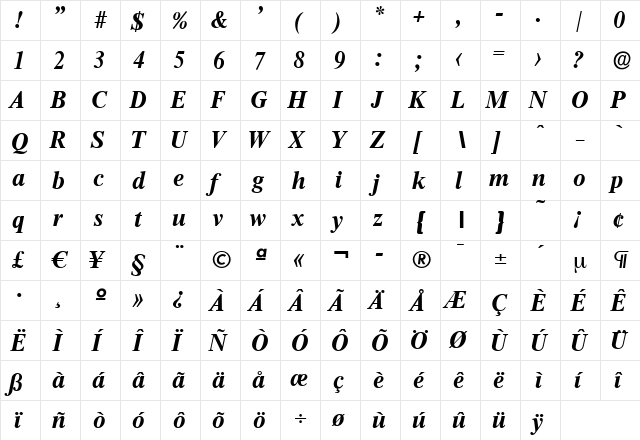
JonasBecker Bold Italic
Design Context for JonasBecker Typeface
JonasBecker is a composed and adaptable typeface that performs quietly and consistently across a wide range of design contexts. The slanted form adds forward momentum and visual energy. Its bold stroke weight gives it real presence on the page.
Pro Tip: Use JonasBecker for emphasis, pull quotes, and subheadings where its slanted energy can add rhythm to the layout.